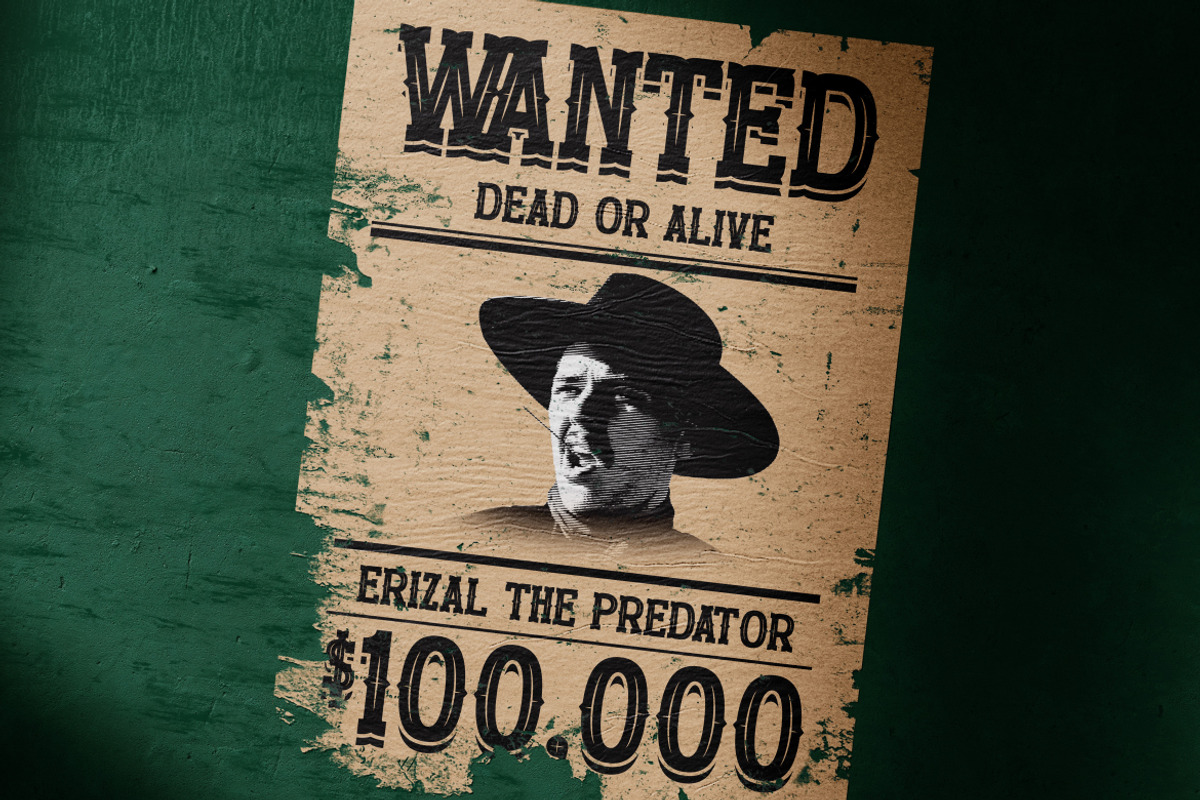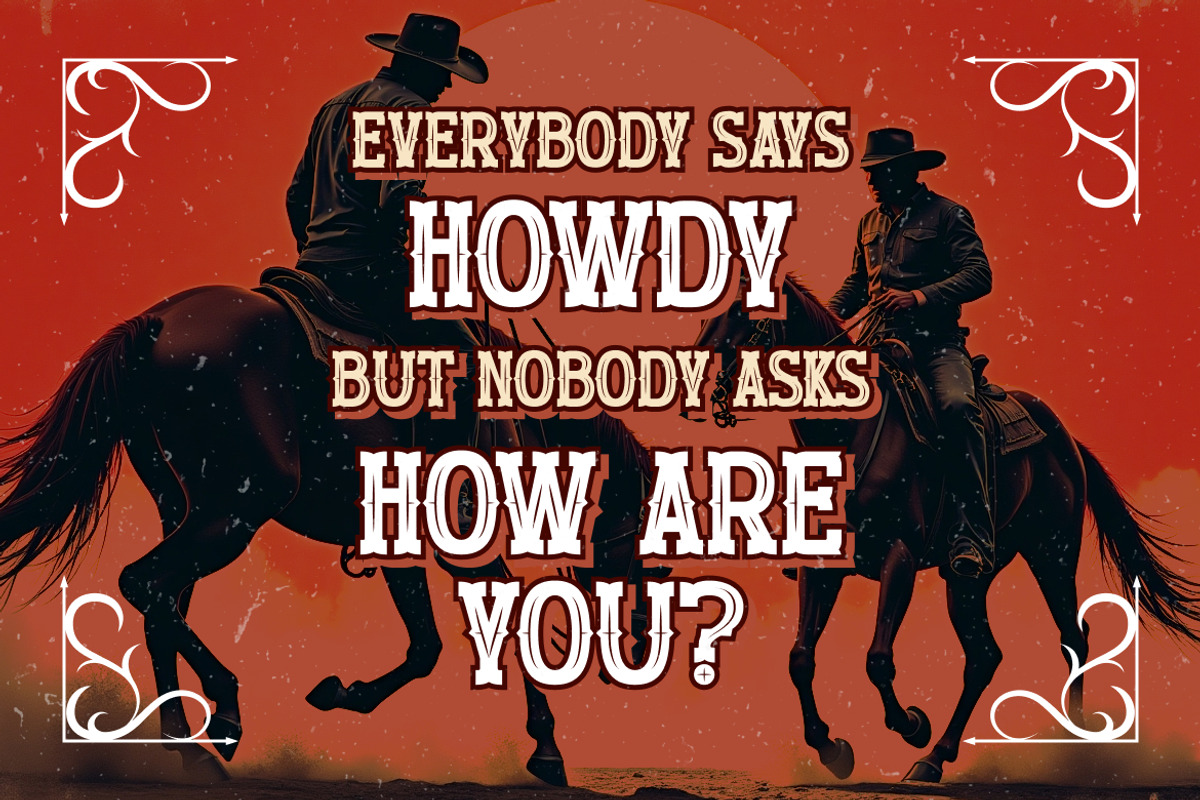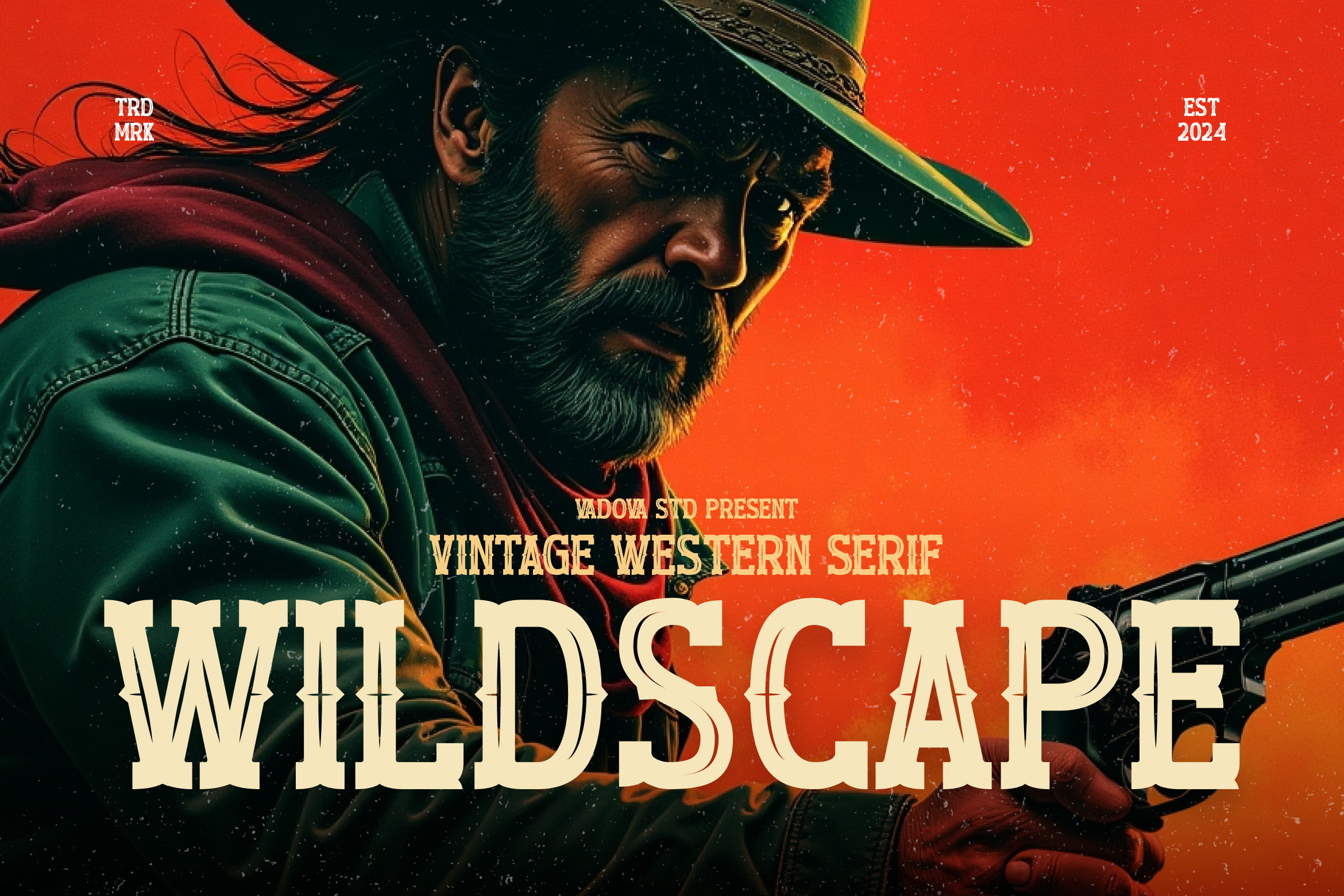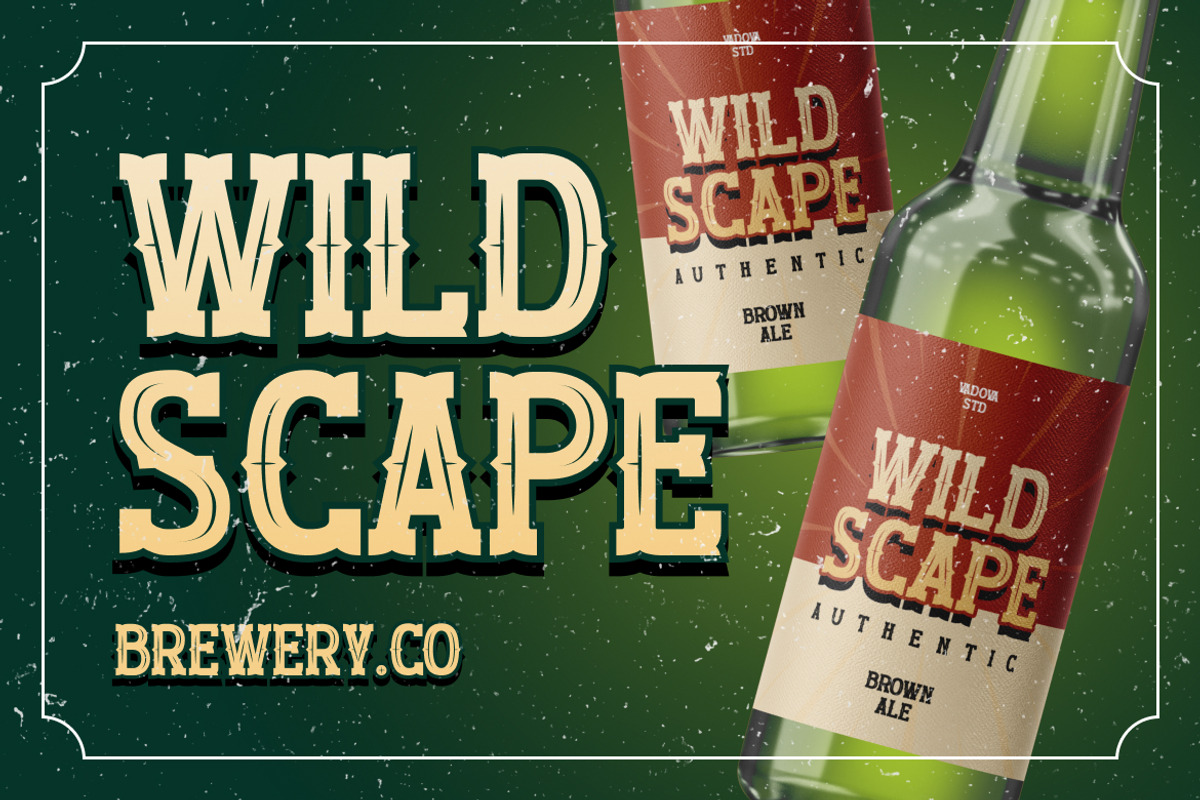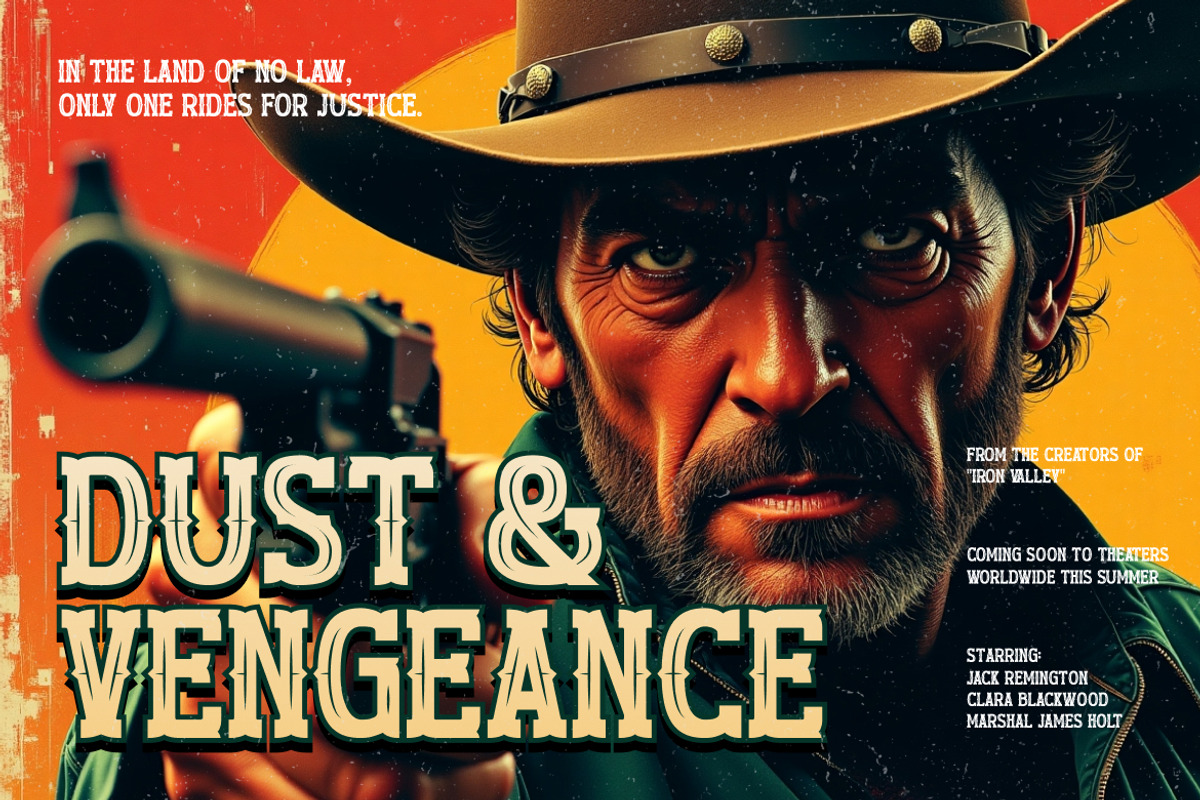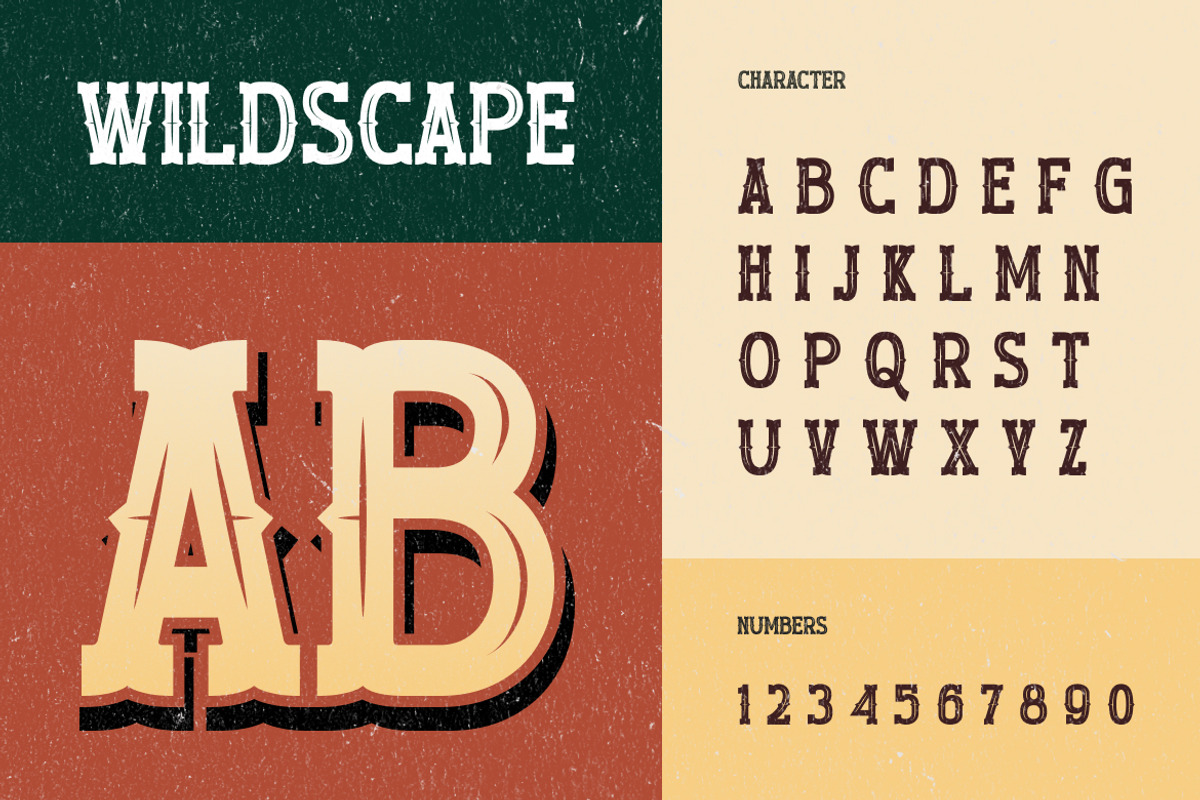
Wildscape Vintage Western Serif Font
Wildscape is a bold vintage western serif font featuring uppercase letters, numerals, and punctuation. Inspired by rugged cowboy typography, it combines decorative serif shapes with rustic engraving details for an authentic Wild West atmosphere.
Perfect for headlines, posters, product labels, and western-themed branding, Wildscape delivers impact and nostalgia in every letterform.
- Uppercase letters
- Numerals and punctuation
- Strong serif construction
- Engraved vintage detailing
- Ideal for western posters, product packaging, beer labels, and signage
- Eye-catching bold serif design for impactful titles
- Retro texture for authentic vintage visuals
Relevance and Use Cases is perfect for western movie titles, cowboy branding, vintage posters, beer labels, adventure packaging, and classic retro designs.
Bring the Wild West to life with Wildscape — a bold serif display font built for strength and character.